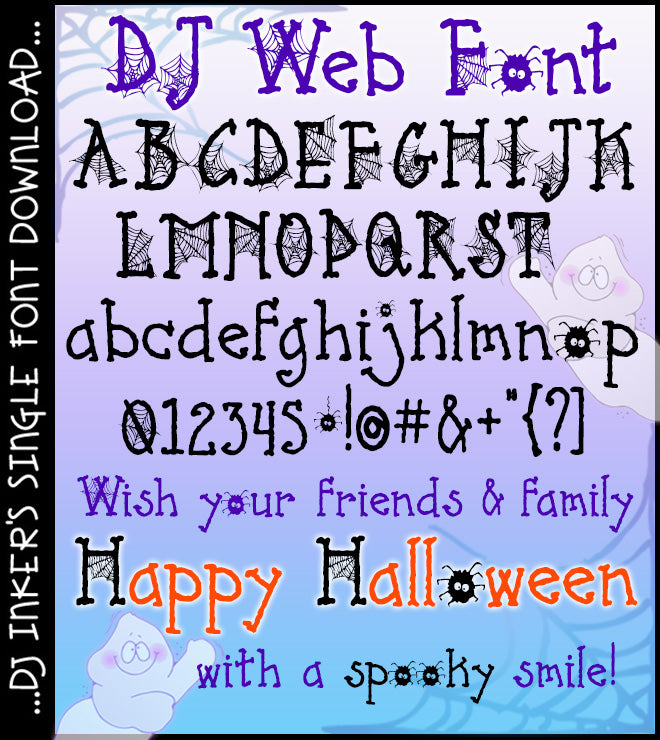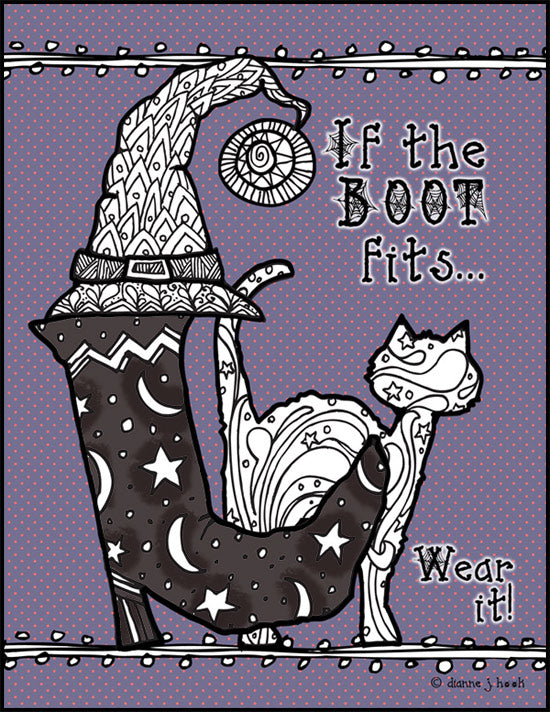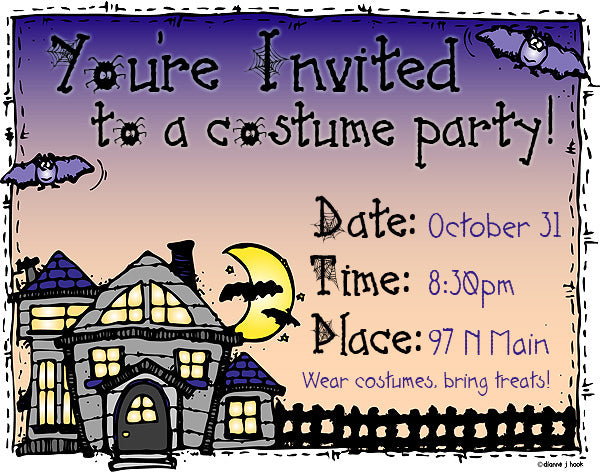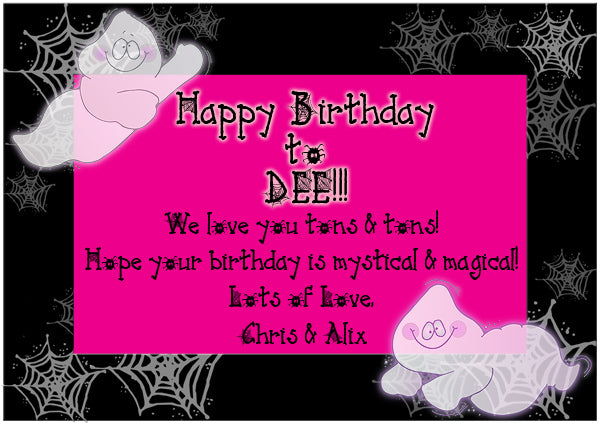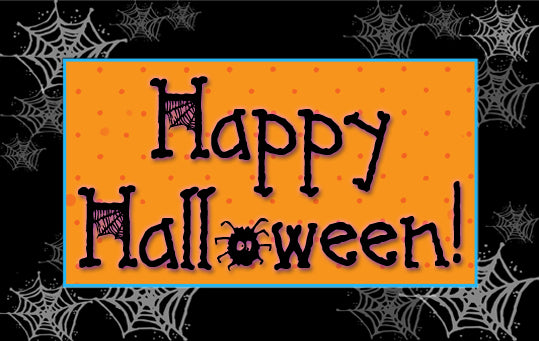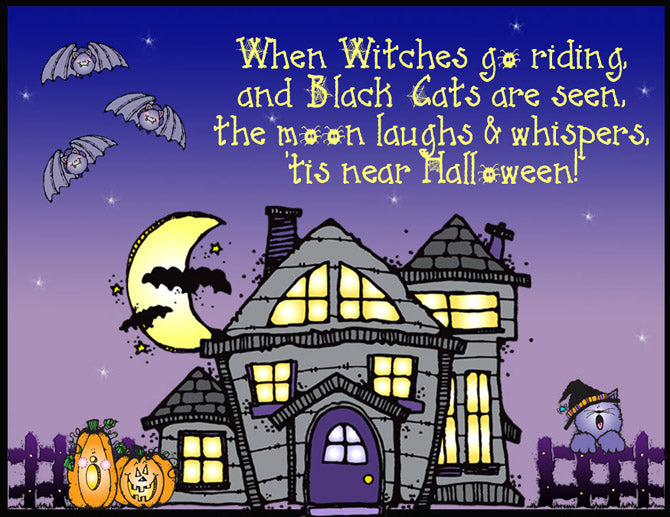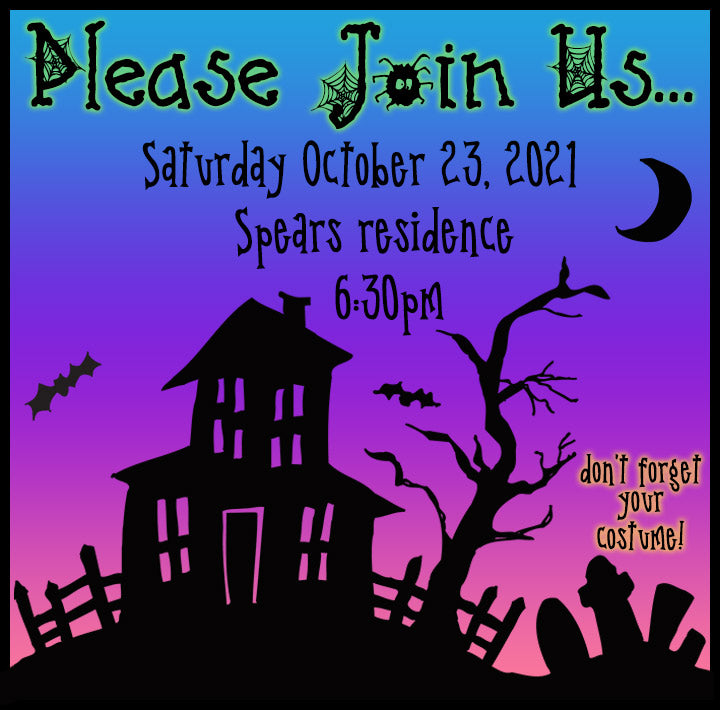
Spin a web of delightful party invitations, decorations, greeting cards,
costume awards & more with our wonderful DJ Web font! This
is spooky-cute lettering will be perfect for Halloween headlines. You'll
especially love the letter 'o' when you type!